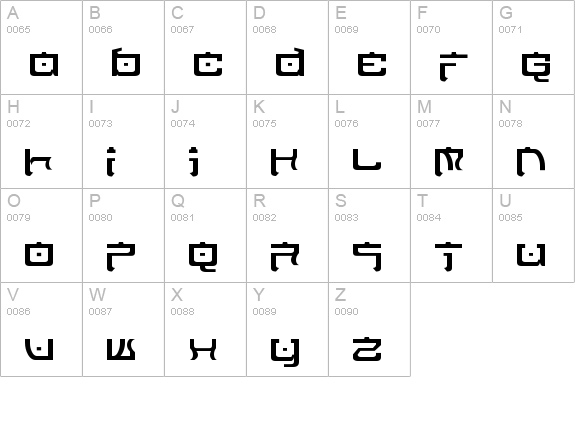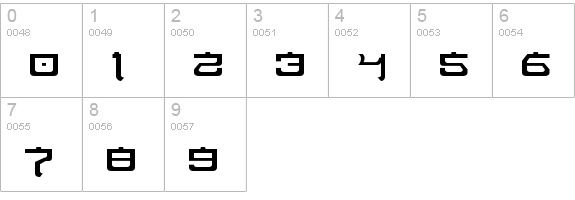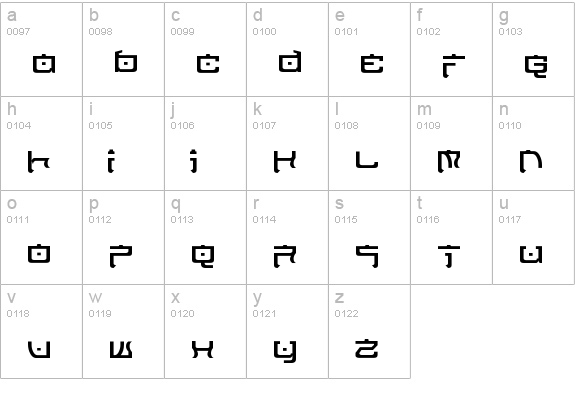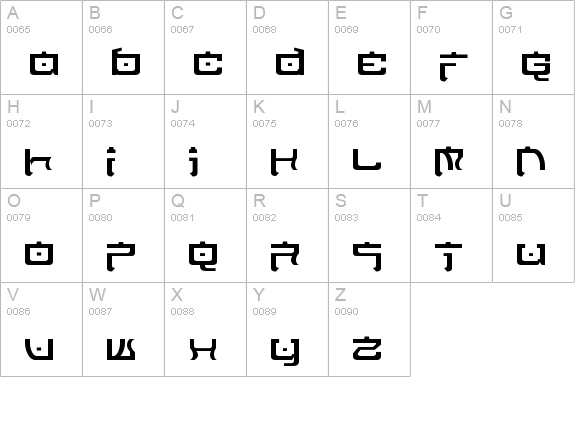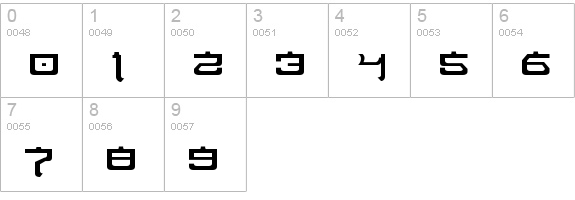
Nippon Tech Normal is the standard, neutral variant in the Nippon typeface family \xE2\x80\x94 well suited to general body text, paragraphs, and standard typographic work.
Nippon Tech Normal font is a modern and sleek typeface that exudes sophistication and professionalism. With its clean lines and sharp edges, this font is perfect for various design projects, from branding to web design. The versatility of Nippon Tech Normal makes it suitable for both headings and body text, ensuring a cohesive and polished look across all your materials. What's even better is that Nippon Tech Normal font is available for free download at FontsMarket.com. This means you can easily access and use this high-quality font without any cost, making it a valuable addition to your font library. Whether you're a designer looking for a stylish typeface or a business owner wanting to elevate your brand's visual identity, Nippon Tech Normal font has got you covered. Download it today and start creating stunning designs effortlessly.